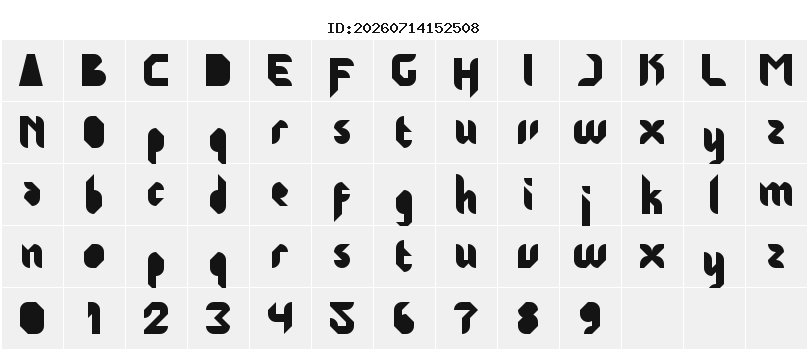
Jakarta Highends Preview
• Font Name: Jakarta Highends
• Full Font Name: Jakarta Highends
• Designer: Adien Gunarta
About Jakarta Highends.ttf
Jakarta Highends.ttf is a modern, elegant sans-serif font designed for ultimate readability and visual harmony. Perfect for branding, headlines, web design, and print materials.